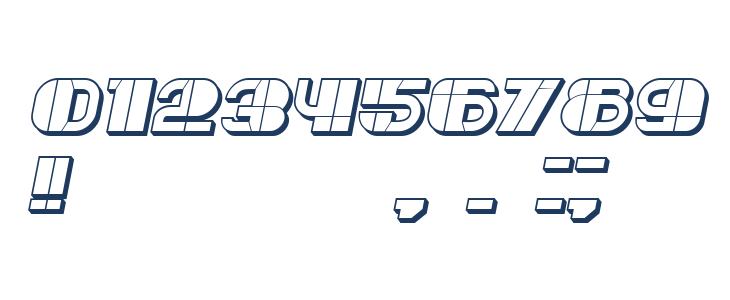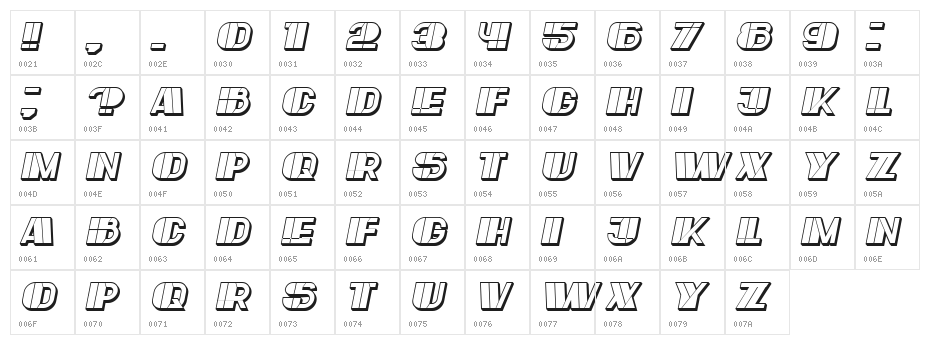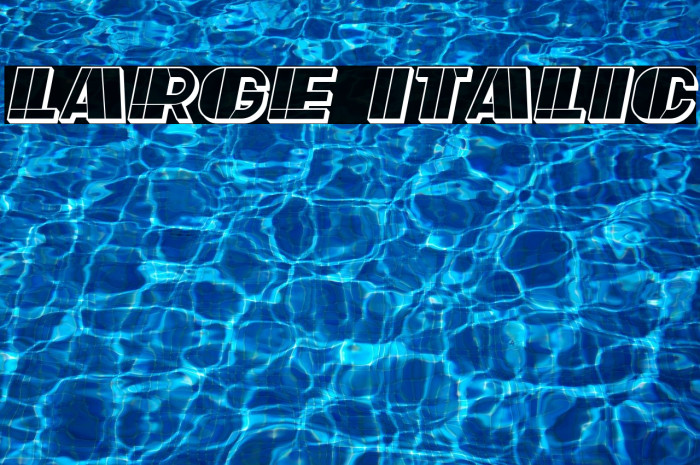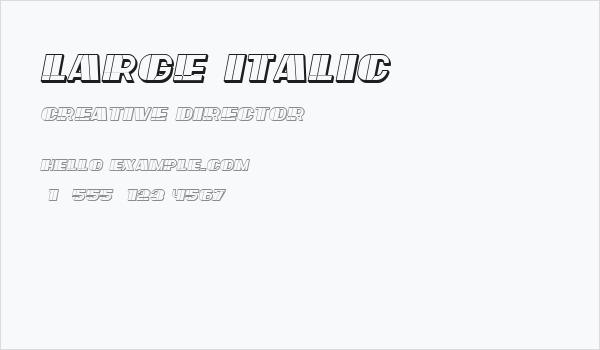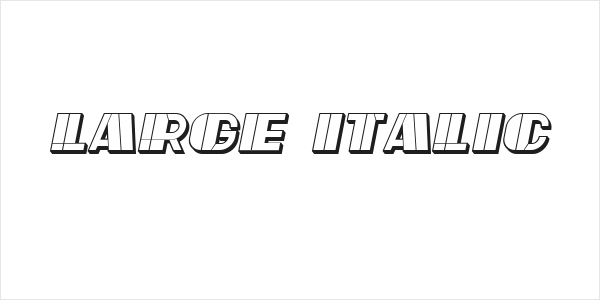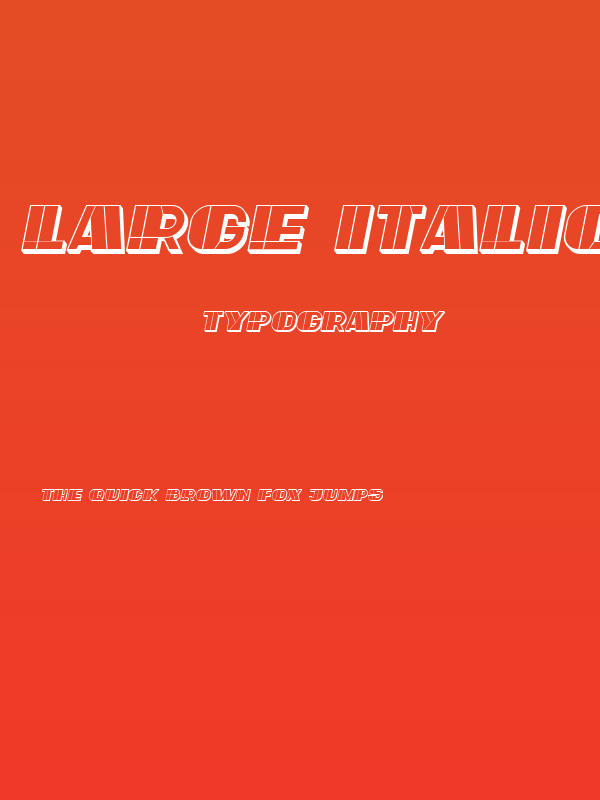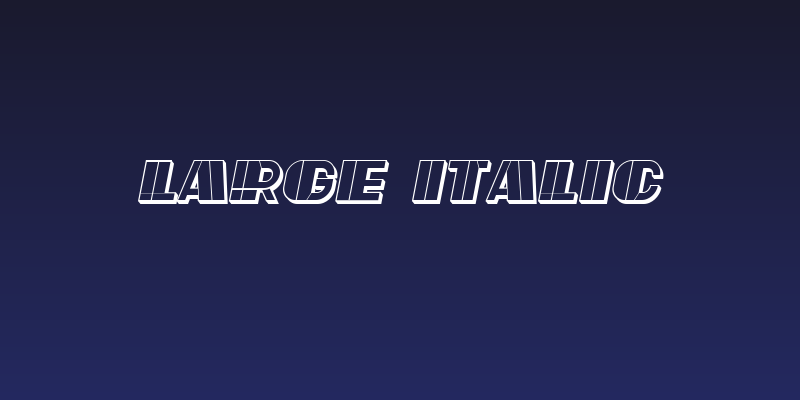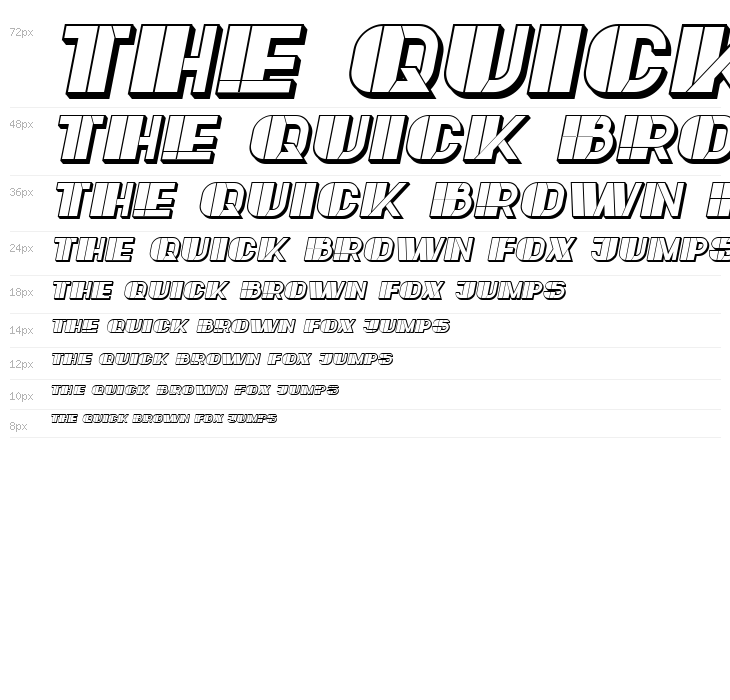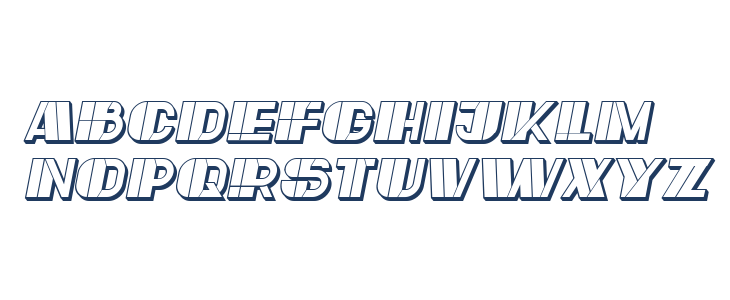
Large Italic Font
Large Italic Description
This font features a bold, three-dimensional style with a distinct italic slant, giving it a dynamic and modern appearance. The characters are outlined with a thick black line, creating a strong contrast against the white interior. The design includes uppercase letters, numbers, and a selection of special characters. The geometric shapes and sharp angles contribute to its futuristic and industrial feel, making it stand out in any design. This font is perfect for projects that require a bold statement and a sense of movement.